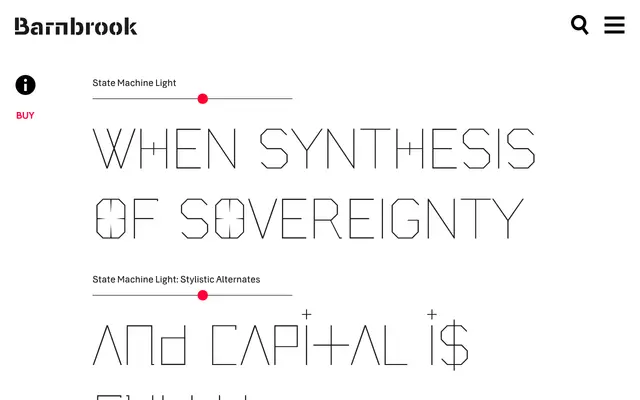
State Machine
A display typeface drawn from Cold War military vehicle lettering and 1970s hand-painted political banners, with a name that bridges political theory and computer science.
The letterforms take their cues from stencilled signage on American and Russian Cold War military hardware, with an alternate character set referencing the rough, hand-made quality of 1970s protest banners. The name draws on two distinct definitions: Max Weber's conception of the state as the entity holding a monopoly on legitimate physical force, and the computer science model of an abstract machine cycling through finite states. Together they frame the typeface as a tool for transforming meaning, sitting at the intersection of political language and systematic design.
A display typeface drawing on stencilled military lettering from Cold War-era vehicles and hand-made political banners, placing it firmly in the display category with a utilitarian, propaganda-inflected character.